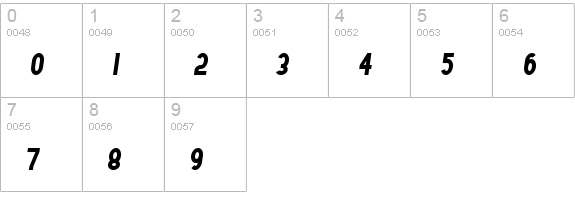
Introducing QueerStreet, a delightful and versatile font that will take your designs to new heights of creativity and expression. This unique typeface is a perfect blend of modern sophistication and playful charm, making it ideal for a wide range of design projects. QueerStreet's free-flowing lines and contemporary letterforms exude a sense of freedom and individuality. Its bold and dynamic strokes captivate the eye, while its subtle curves and elegant details add a touch of finesse. Whether you're crafting a logo, designing a poster, or creating a stunning website, QueerStreet will bring your ideas to life with its distinctive character. What sets QueerStreet apart is not only its exceptional design, but also its accessibility. As a font that embraces inclusivity and diversity, QueerStreet is freely available to download at FontsMarket.com. This means that designers of all backgrounds and budgets can enjoy the beauty and versatility of this extraordinary typeface without any barriers. With QueerStreet, the possibilities are endless. Its wide range of weights and styles allows you to experiment and create captivating designs that truly stand out. Whether you're aiming for a bold statement or a subtle touch, QueerStreet will effortlessly adapt to your needs, allowing you to convey your message with clarity and style. Embrace the power of QueerStreet and unlock a world of design possibilities. Download this remarkable font for free at FontsMarket.com and let your creativity soar to new heights.